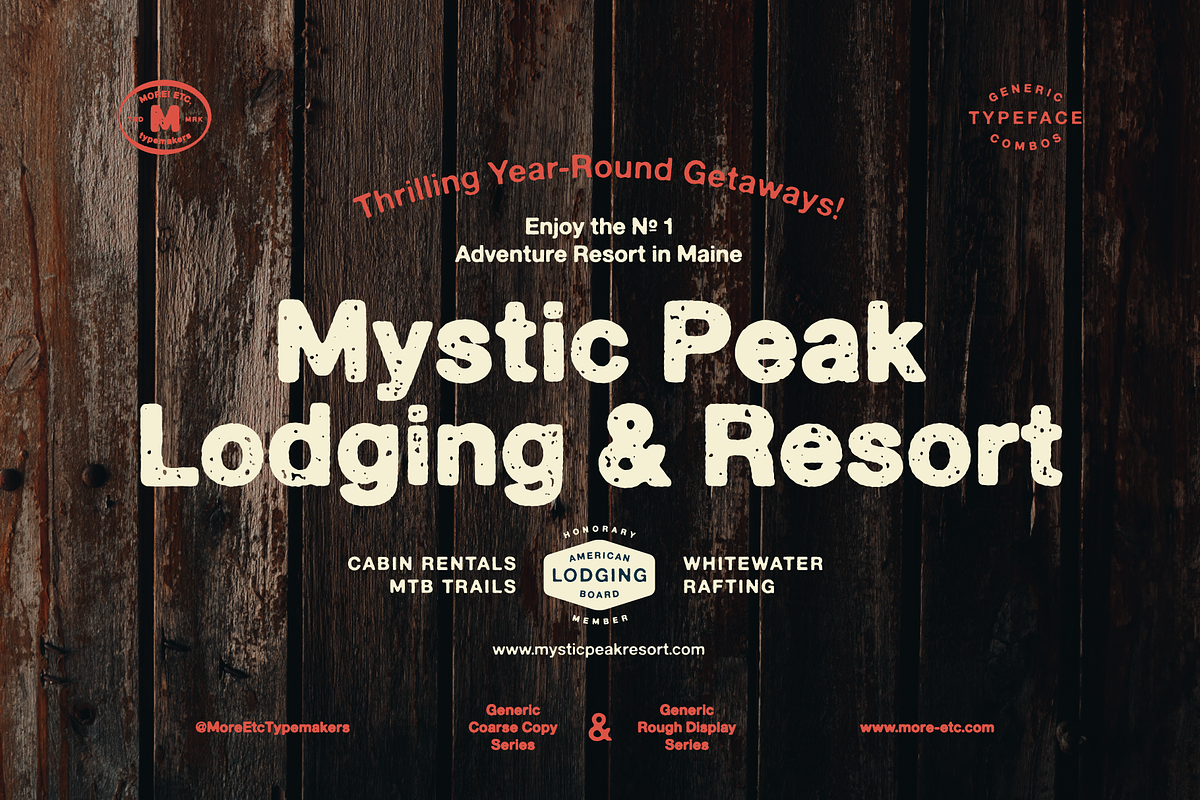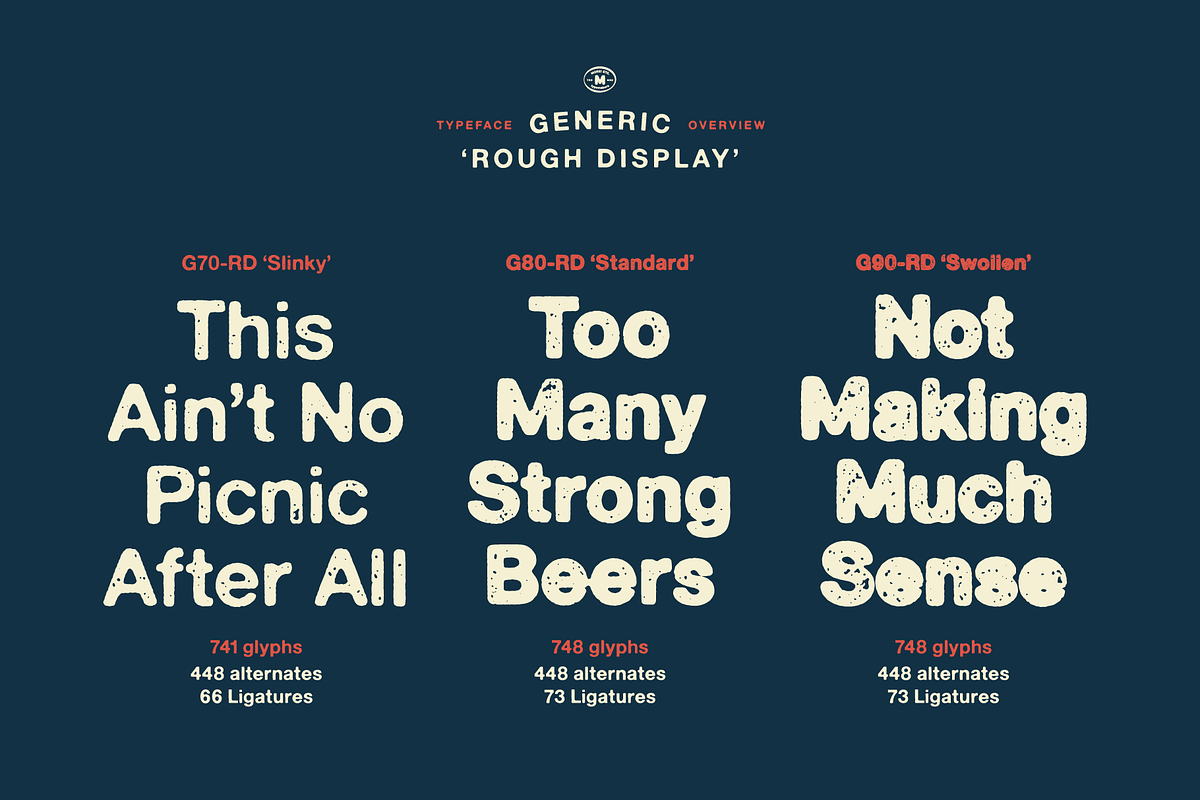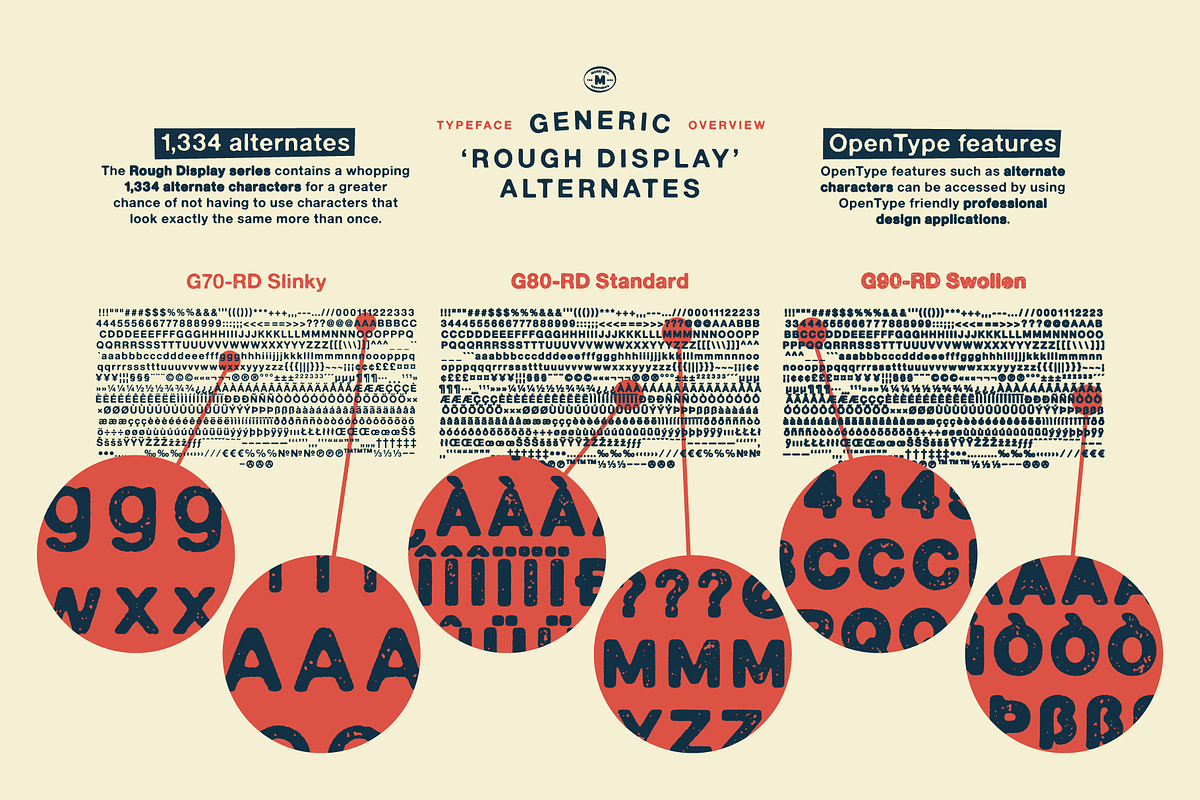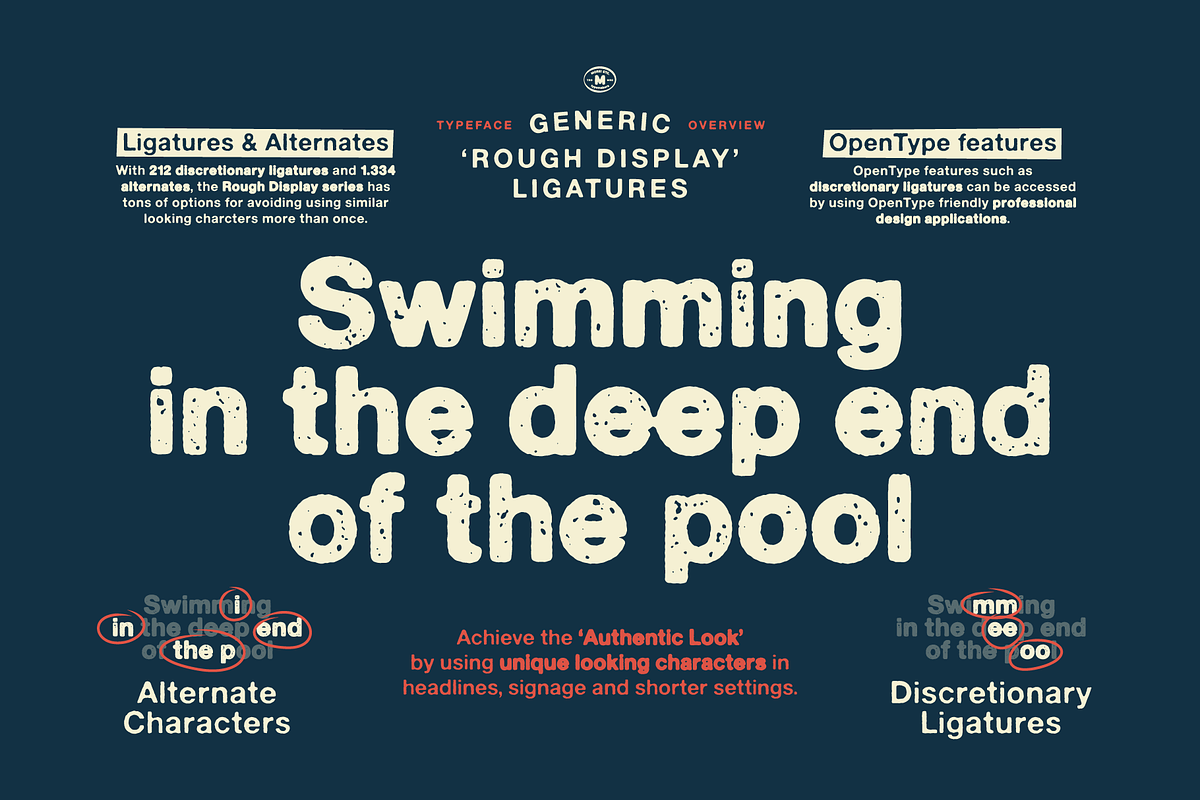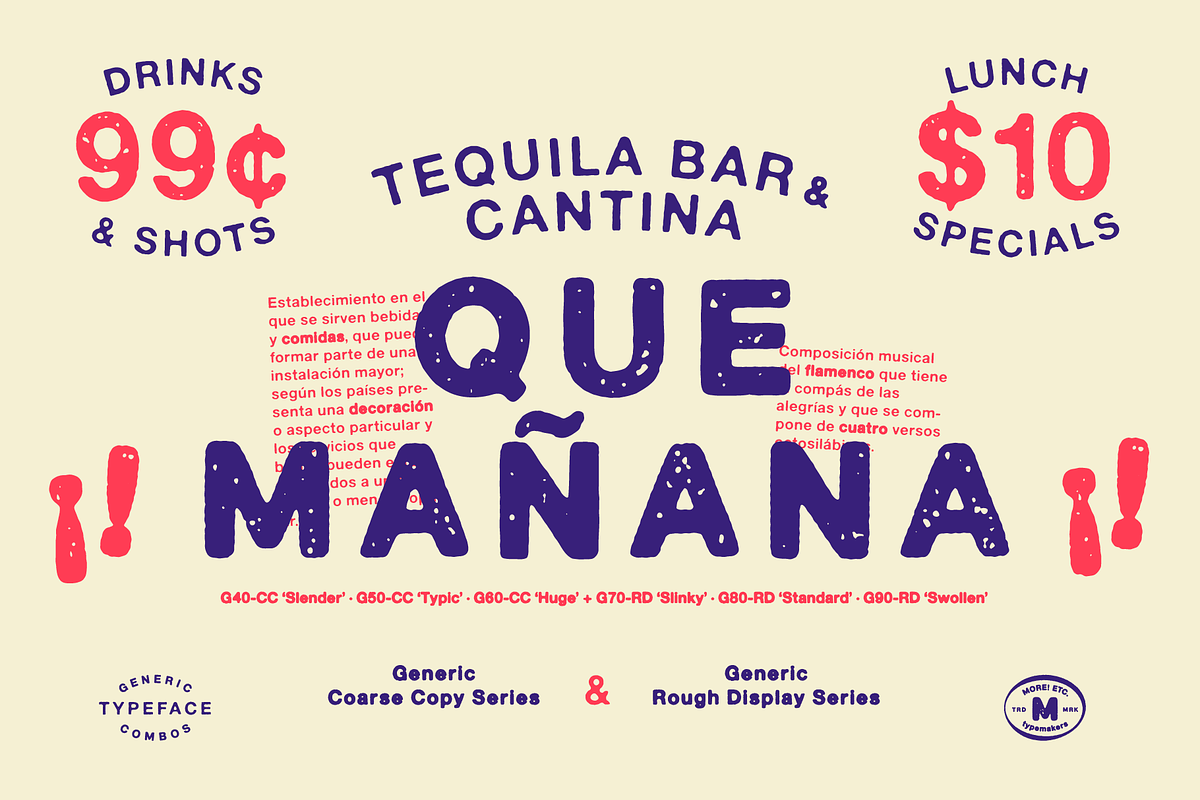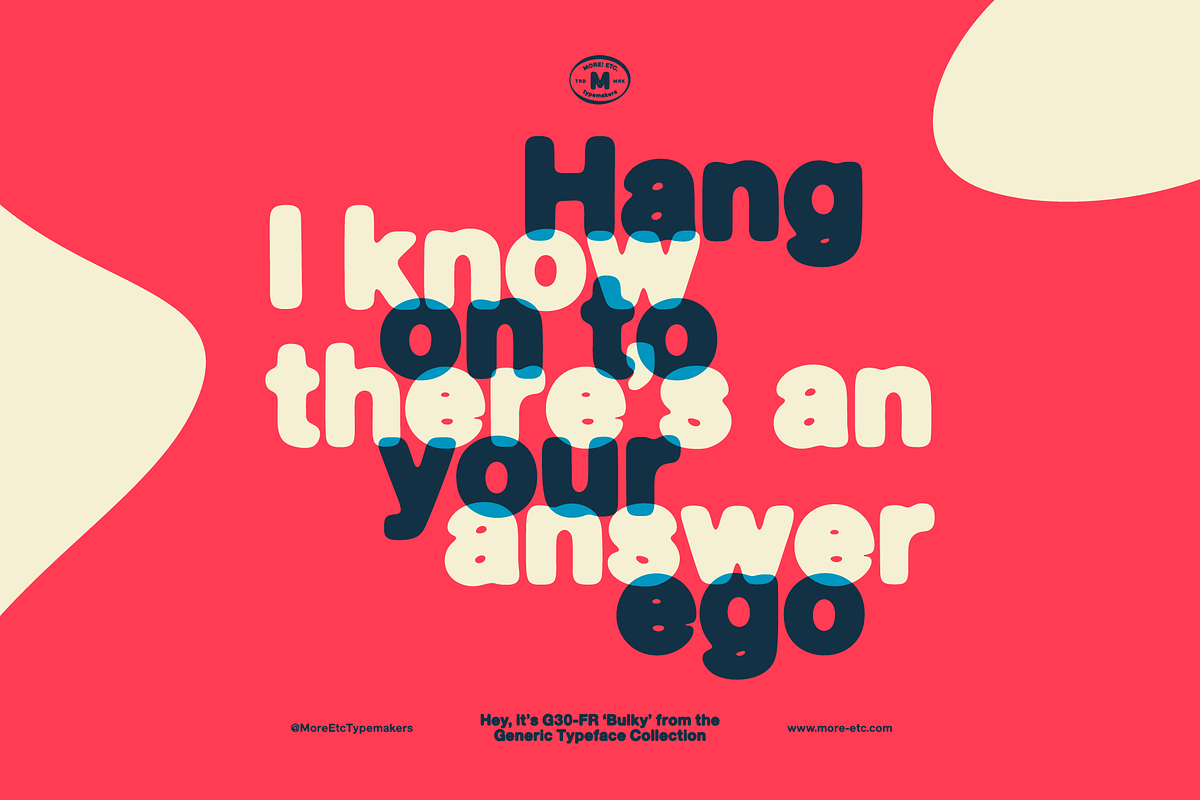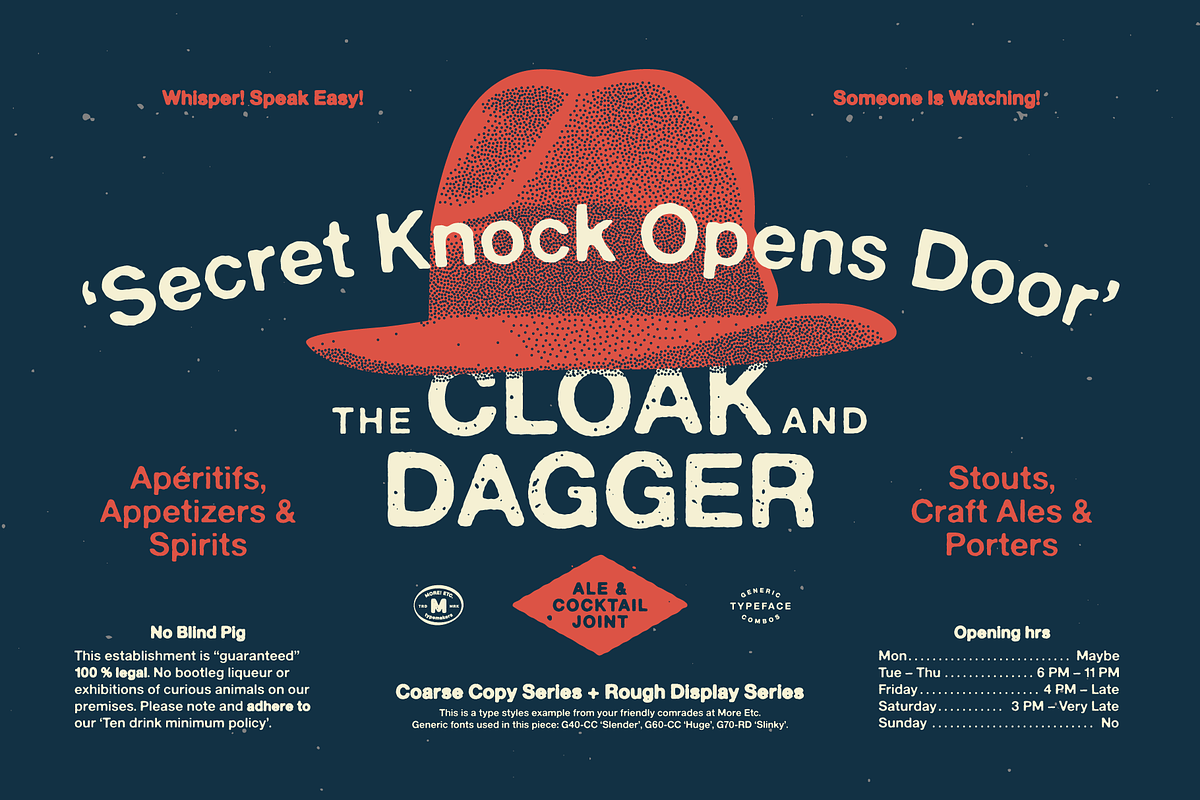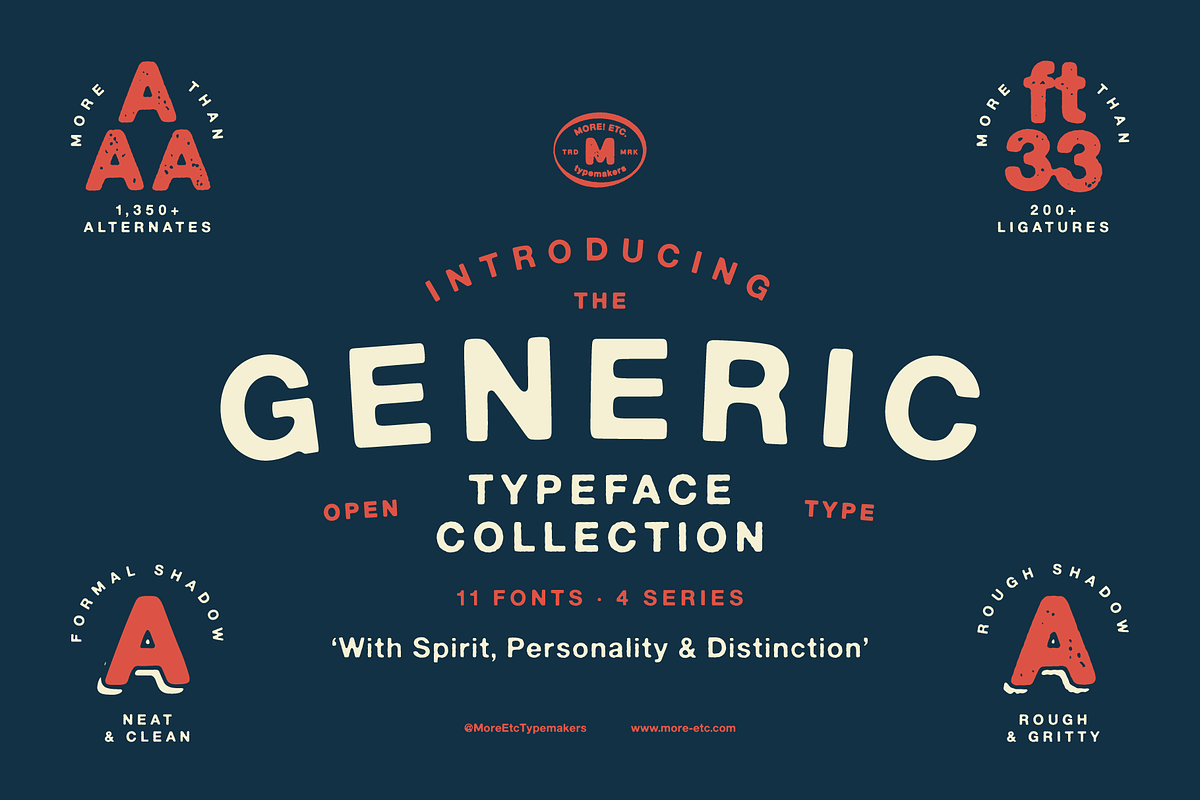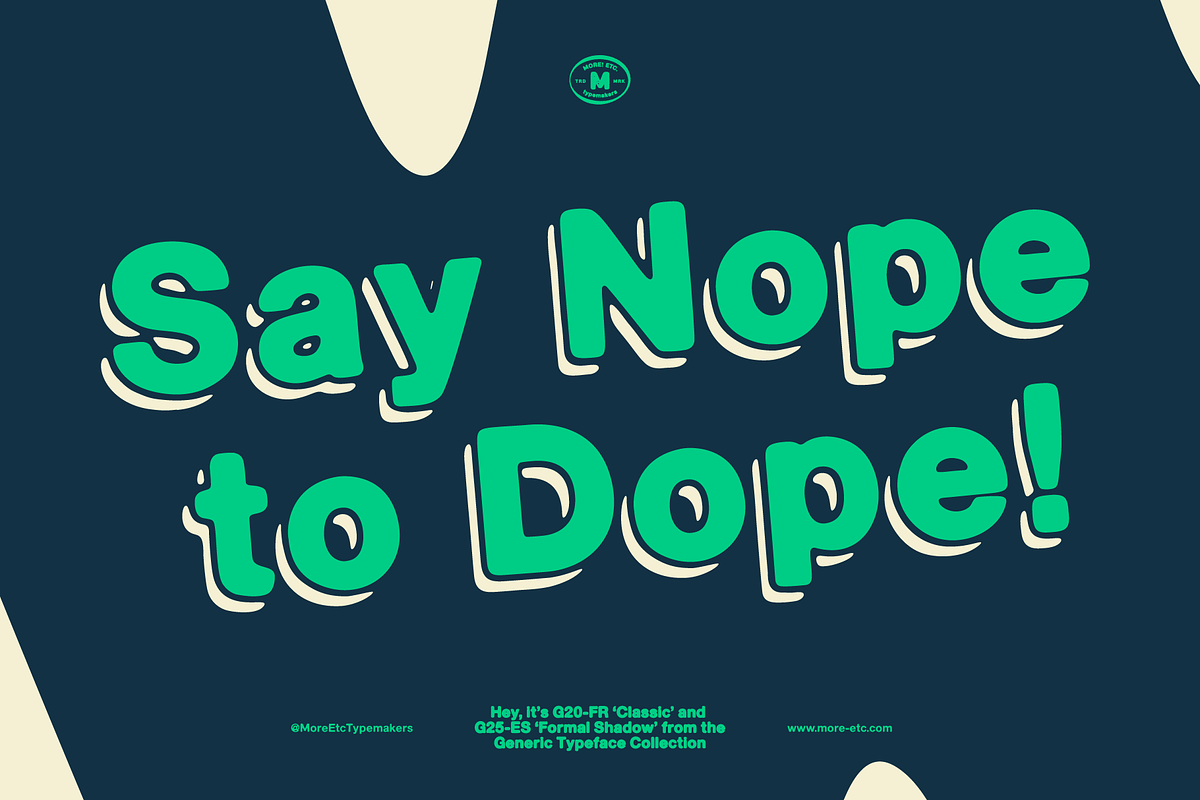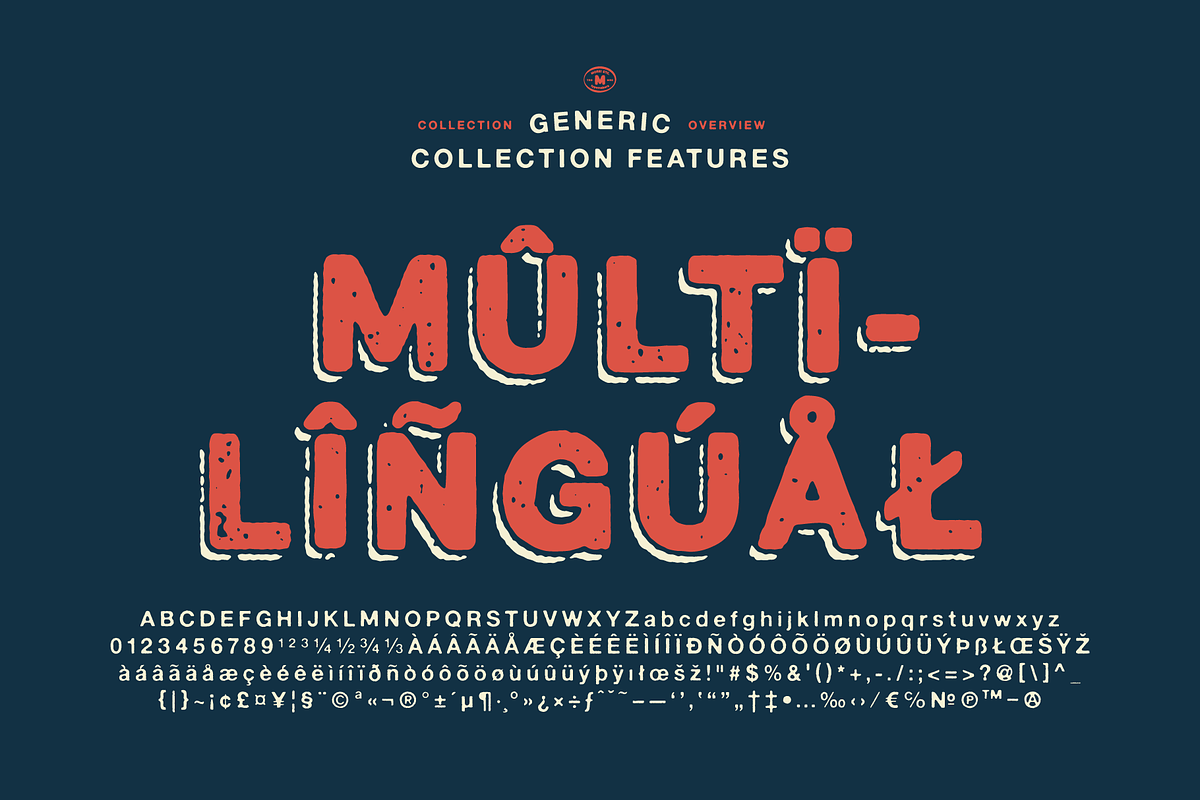
Generic Typeface Collection
The complete Generic Typeface Collection by More Etc. featuring 11 display fonts with tons of personality, alternates, ligatures and awesome details.
The Generic Typeface Collection is a series of sans-serif typefaces inspired by the craftsmanship of graphic design, typesetting, and printing in the analogue era – before Adobe, Macintosh computers and desktop publishing – when dinosaurs ruled the earth.
With the use of various typesetting apparatuses or dry transfer type, photo copiers, and shooting layouts and paste-ups to film, the printed results was not as exact, precise and predictable as it is today.
When examining old prints, it is difficult not to like the way that characters in over- or underexposed film have a special type of vibe to them that is often sadly lost in today’s pursuit of total perfection.
Encouraged by this, I saw a need for a collection of typefaces that are non-clinical and non-conformist, and some that are coarse, rough and distorted – errors that might come from poor exposure when put on film, enlargements from small point texts, or maybe quality loss from successive generations of photocopies. Or all of the above.
This is an attempt to incorporate spirit and personality into a set of typefaces without losing distinction. You might call it a homage to non-perfection. I call it human.
The Generic Typeface Collection consists of 11 fonts divided into four series. The three standard series – the Formal Release series, the Coarse Copy series, and the Rough Display series – all contain three fonts each. The Extra Splendor series contains a couple of shadow fonts for that little extra sparkle.
Formal Release – Handcrafted & Clean
The Formal Release series features sans-serif typefaces for everyday use. They are handcrafted and clean, human and uncomplicated. The Formal Release series contains three typefaces that add tons of personality to any text.
- G10-FR ‘Slim’ – a slightly under-exposed and clean typeface in a regular weight (228 glyphs - 1 alternate)
- G20-FR ‘Classic’ – a properly exposed clean typeface in a bold weight (228 glyphs - 1 alternate)
- G30-FR ‘Bulky’ – a heavily over-exposed clean typeface in an ultra weight (228 glyphs - 1 alternate)
Coarse Copy – Dirty & Rough
The Coarse Copy series features non-conformist typefaces that are worn and rough, maybe after going through that bad copier a few times too much. The Coarse Copy series contains three sans-serif typefaces that add tons of spirit to any text without compromising too much on legibility. Try them on in poster-sizes and everyone will know that you mean business.
- G40-CC ‘Slender’ - an under-exposed coarse typeface in a regular weight (228 glyphs - 1 alternate)
- G50-CC ‘Typic’ – a properly exposed coarse typeface in a bold weight (228 glyphs - 1 alternate)
- G60-CC ‘Huge’ – a heavily over-exposed coarse typeface in an ultra weight (228 glyphs - 1 alternate)
Rough Display – Faded & Decorative
The Rough Display series features attention-seeking decorative typefaces in three feature-packed fonts. Faded and gritty like the image distortion and degradation from successive generations of photocopies, they are eye-catching typefaces intended to stand out in bigger point sizes. Use these typefaces for signage, headlines and similar situations were a strong typographic statement is desired. I have packed no less than 1,334 alternate characters and 212 discretionary ligatures into this series for a greater chance of not having characters that look exactly the same more than once.
- G70-RD ‘Slinky’ – an under-exposed rough and decorative typeface in a regular weight (741 glyphs – 448 alternates – 66 discretionary ligatures)
- G80_RD ‘Standard’ – a properly-exposed rough and decorative typeface in a bold weight (748 glyphs – 448 alternates – 73 discretionary ligatures)
- G90-RD ‘Swollen’ – a heavily over-exposed rough and decorative typeface in an ultra weight (748 glyphs – 448 alternates – 73 discretionary ligatures)
Extra Splendor – Sparkling & Extraordinary
The Extra Splendor series features two shadow typefaces for that little extra sparkle. One clean shadow to be used with G20-FR ‘Classic’, and one rough shadow to be used with G80-RD ‘Standard’. Having the shadows separate from the main typeface adds another layer of expressiveness in that you can try out color combinations for that extra splendor.
Tips for matching (applies to both the base font and the shadow font): Set the kerning to Metric, not optical. Increase tracking to accommodate for the shadows extra width.
- G25-ES ‘Classic Shadow’ – a clean shadow to be used with G20 FR ‘Classic’ (228 glyphs – 1 alternate)
- G85 ES ‘Standard Shadow’ – a rough shadow to be used with 80 RD ‘Standard’ (227 glyphs)